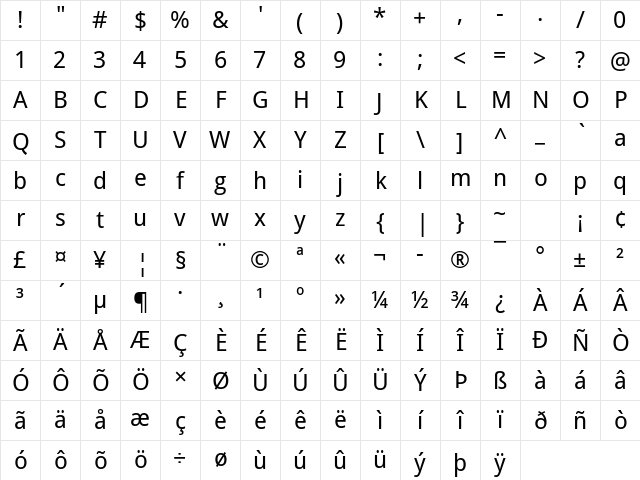
Droid Sans is a composed and adaptable typeface that performs quietly and consistently across a wide range of design contexts.
Pro Tip: Use Droid Sans in both headline and body roles to test its range before committing to a single application.